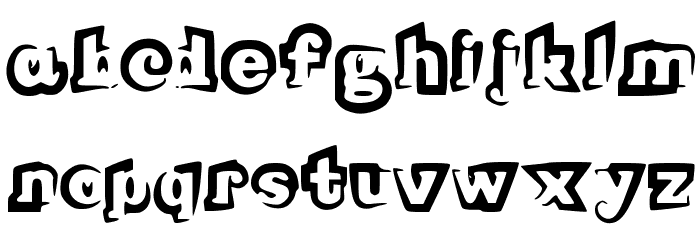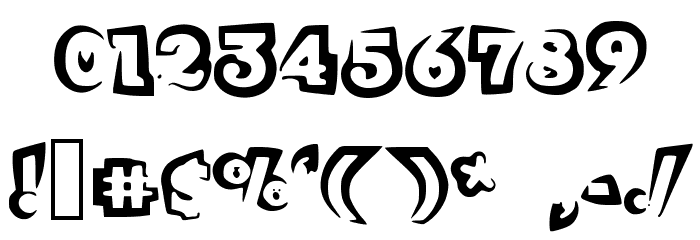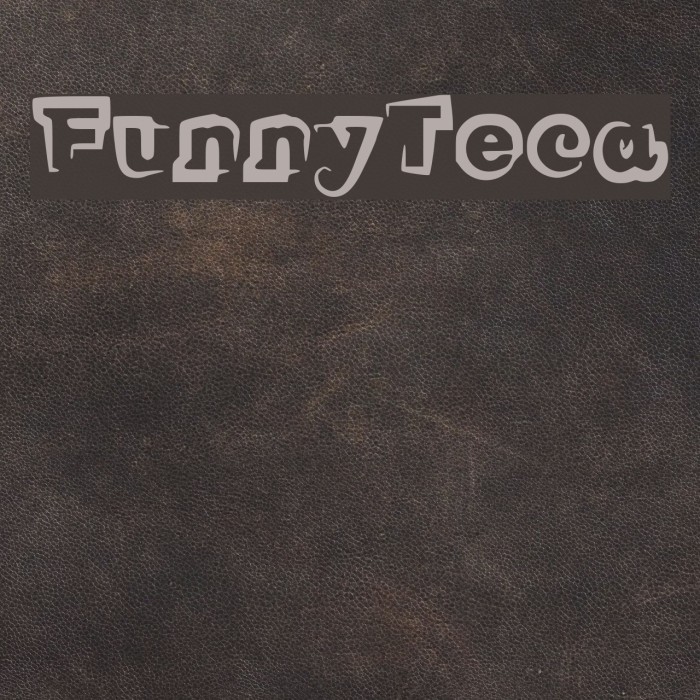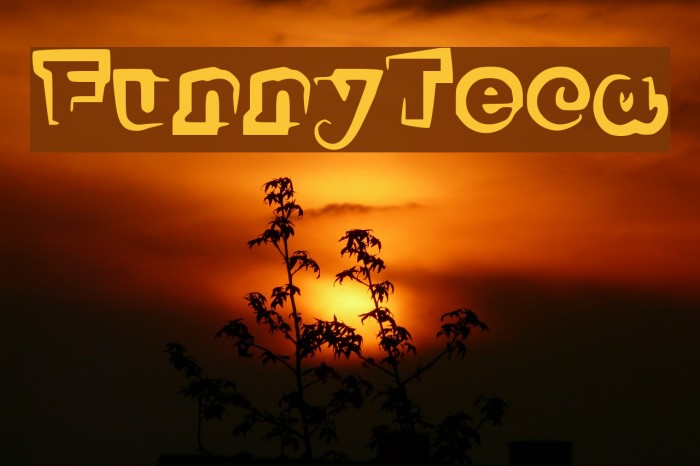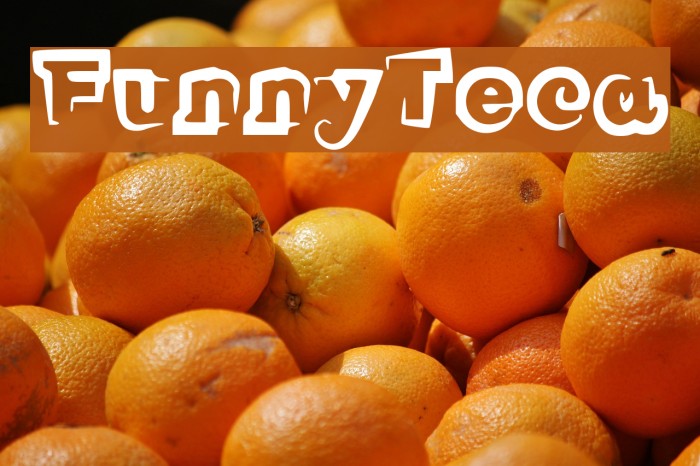
FunnyTeca Font
This font exudes a playful and whimsical character, with each letter featuring a bold, cartoonish style. The letters have a chunky, uneven appearance, with exaggerated curves and angles that give them a lively, animated feel. The uppercase and lowercase letters maintain a consistent style, with the lowercase letters being slightly more compact. Numbers and special characters follow the same playful design, making them stand out with their bold outlines and quirky shapes. The overall look is eye-catching and fun, perfect for projects that require a touch of humor and creativity.
A bold, playful font with cartoonish, exaggerated characters.
- Proposed Projects: Ideal for children's books, comic strips, playful branding, and party invitations.
- Overall Style: Playful, Cartoonish